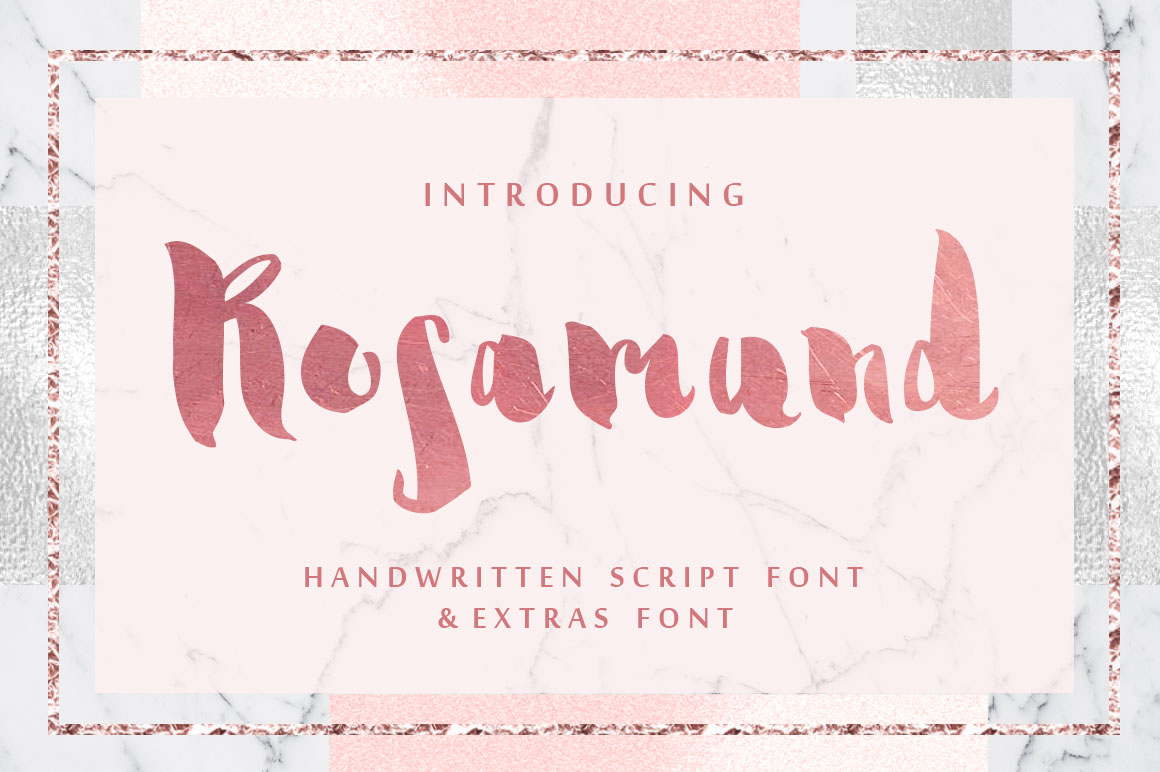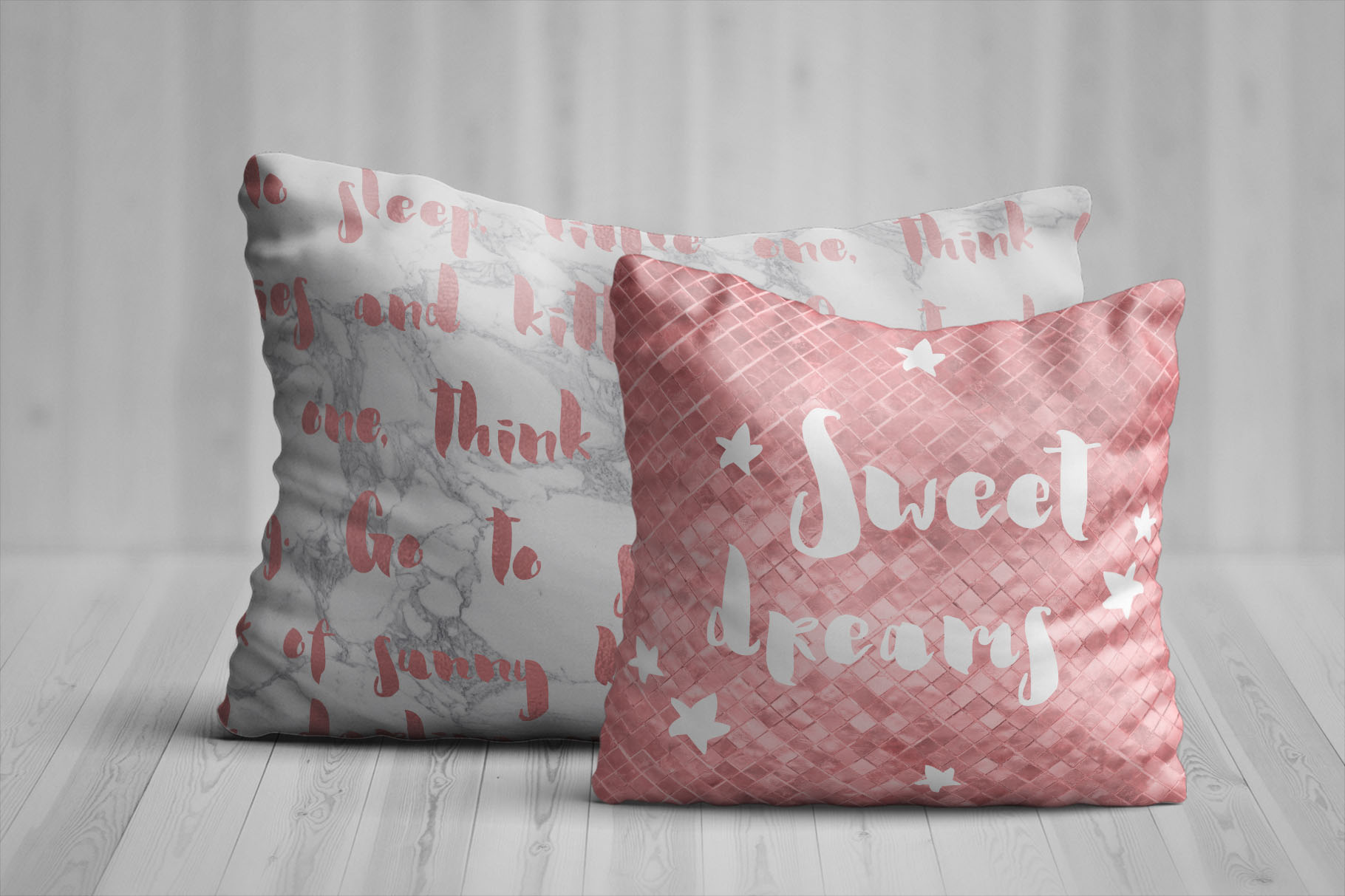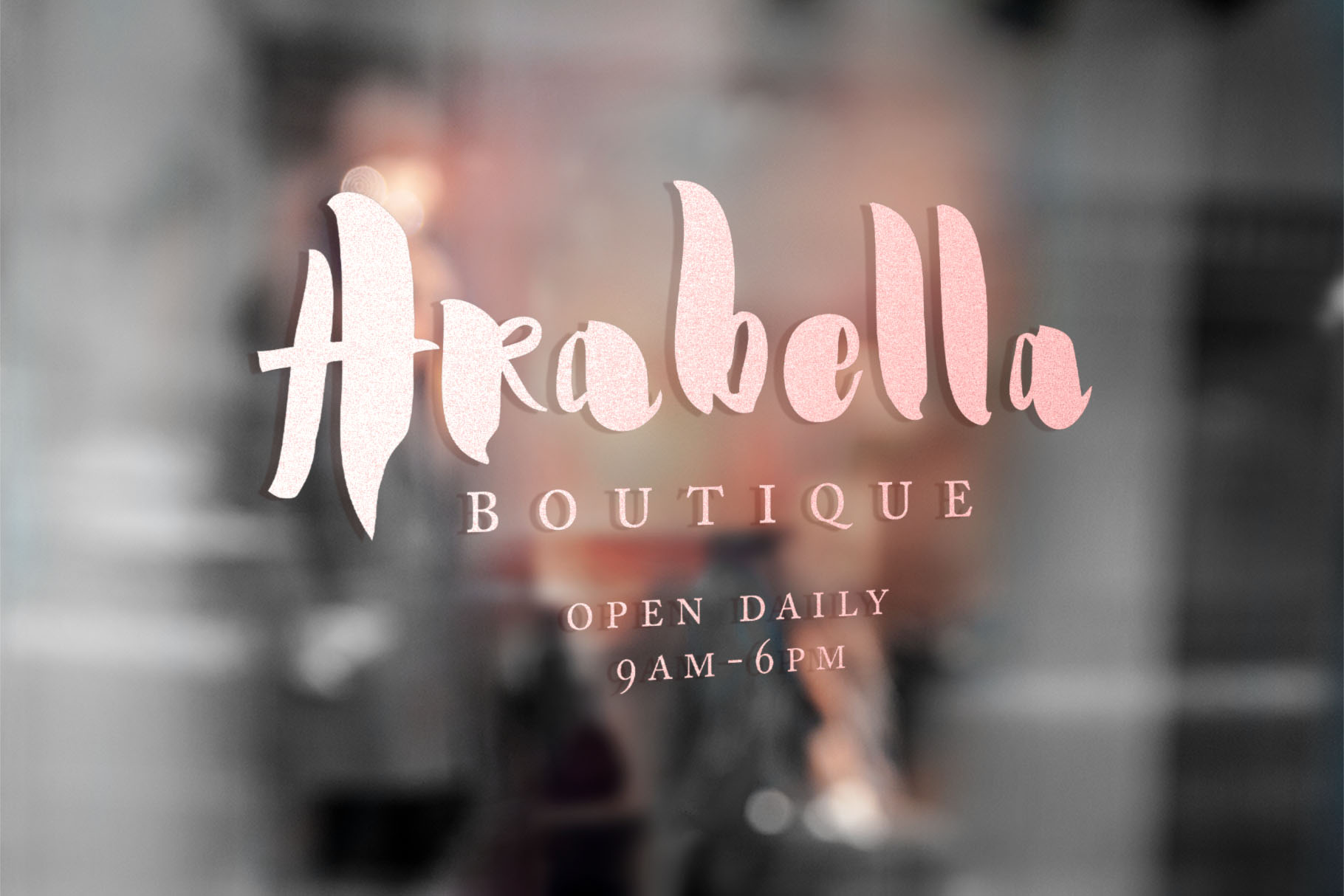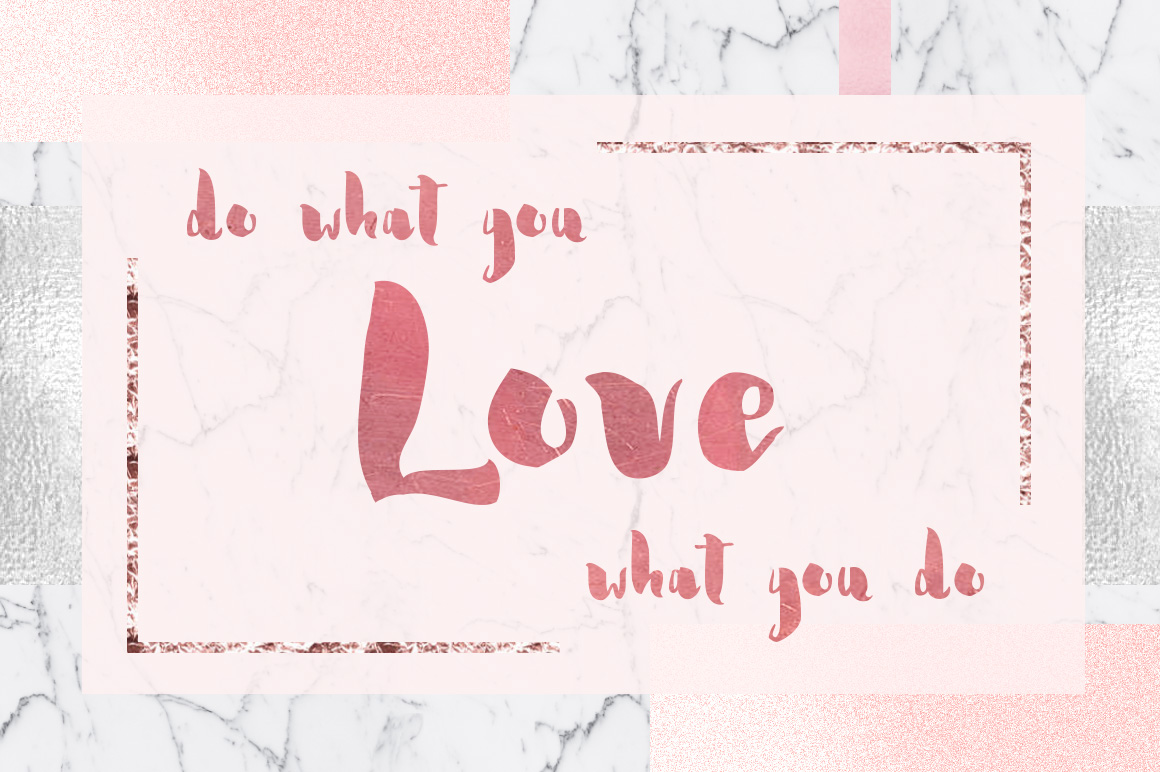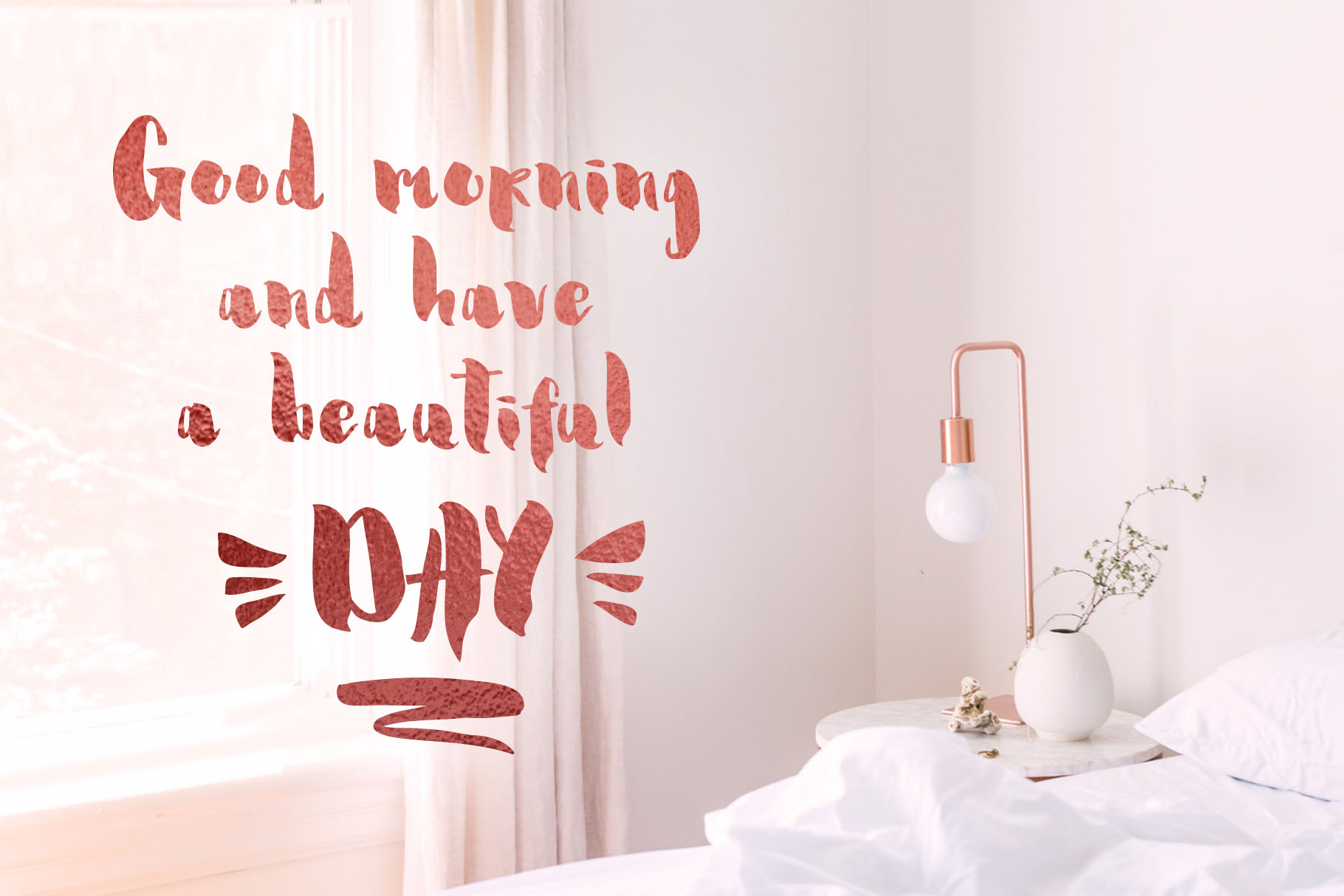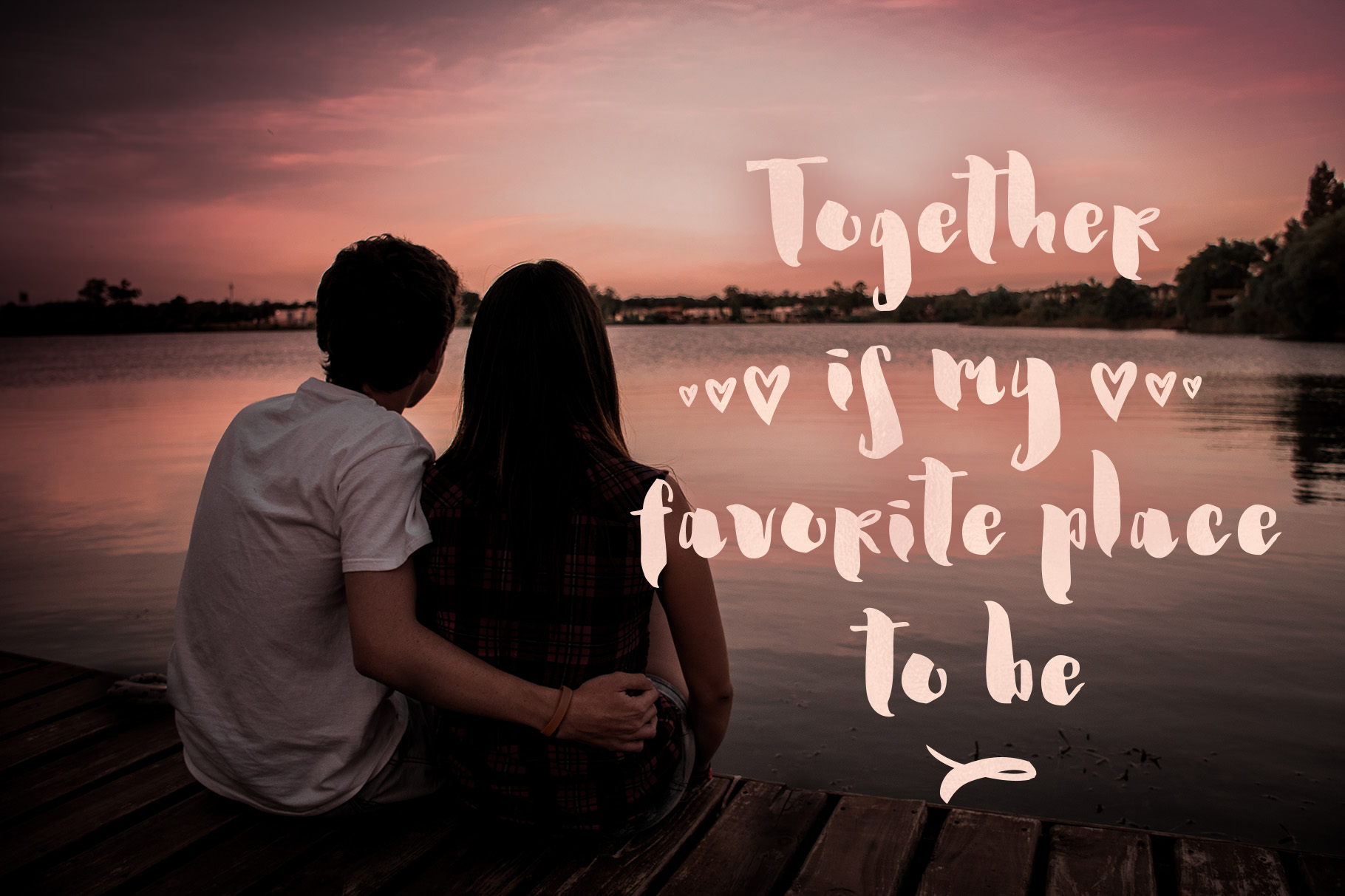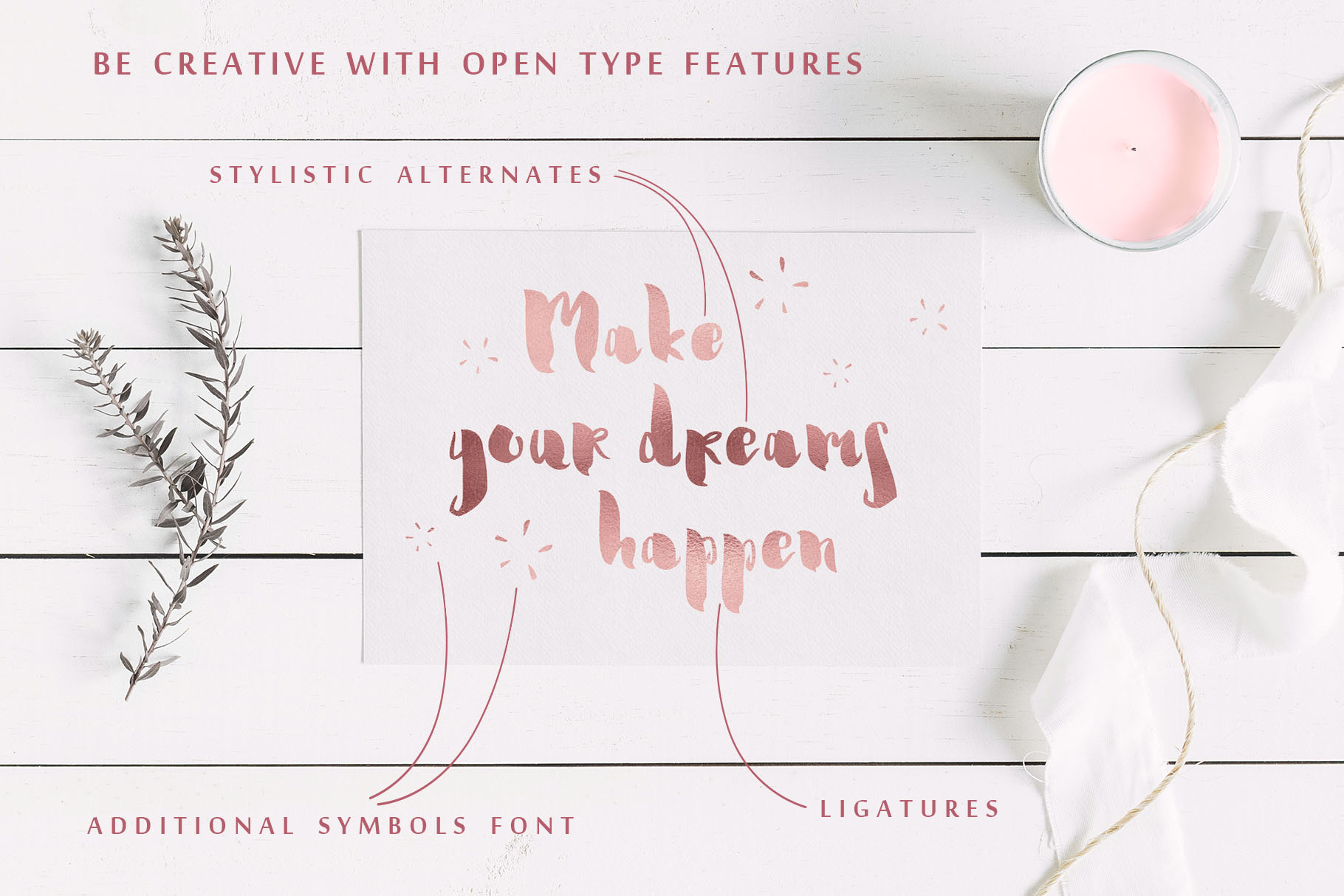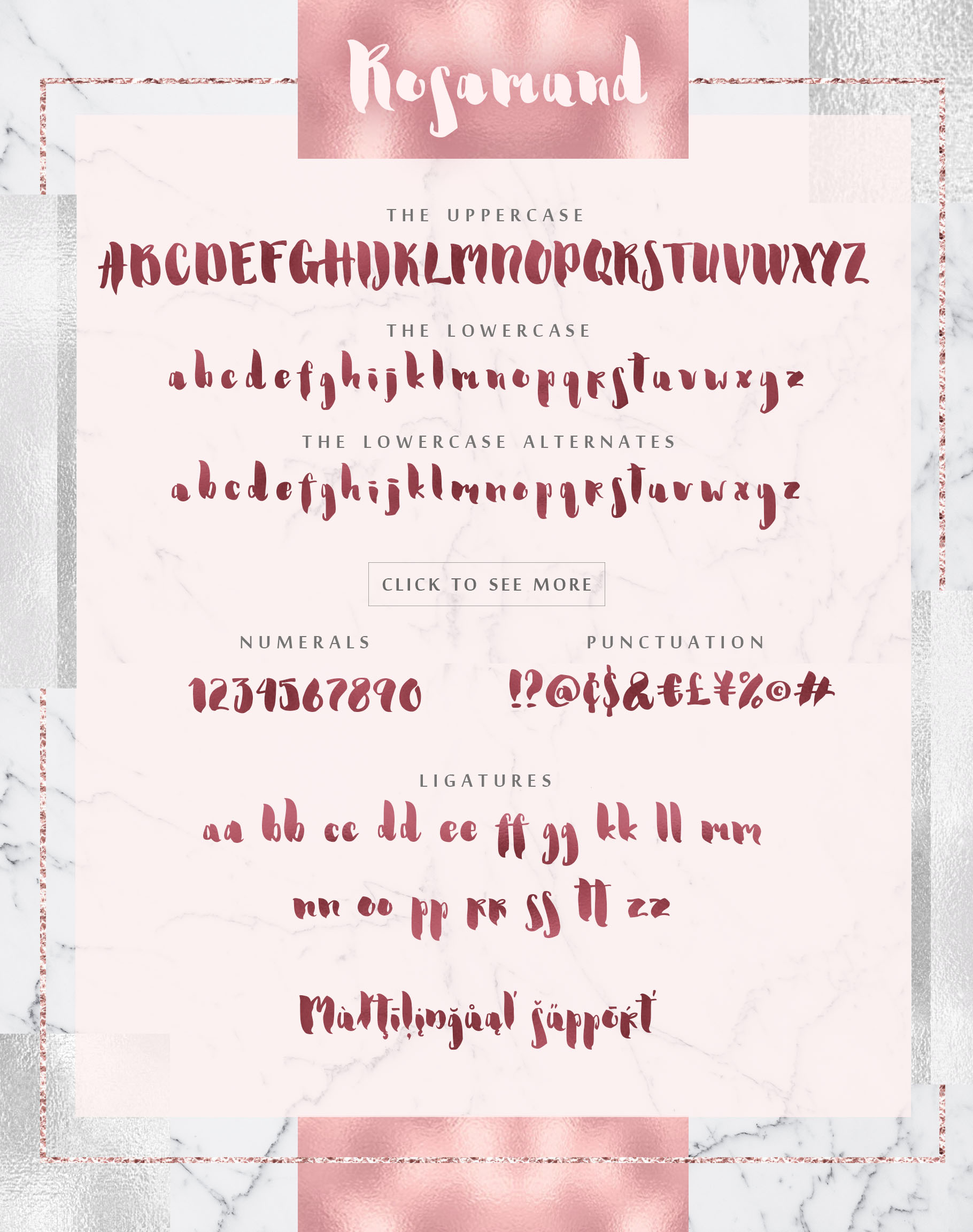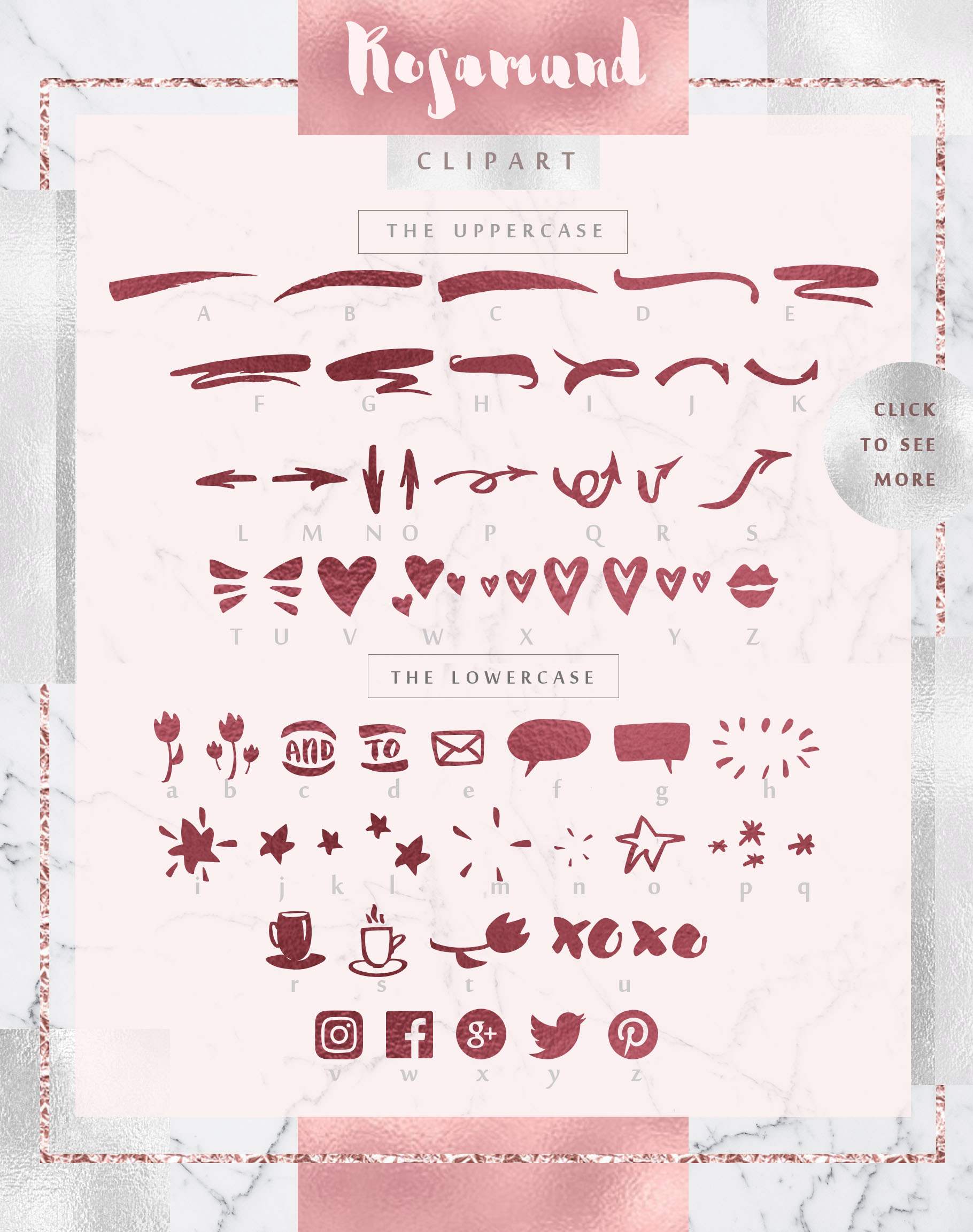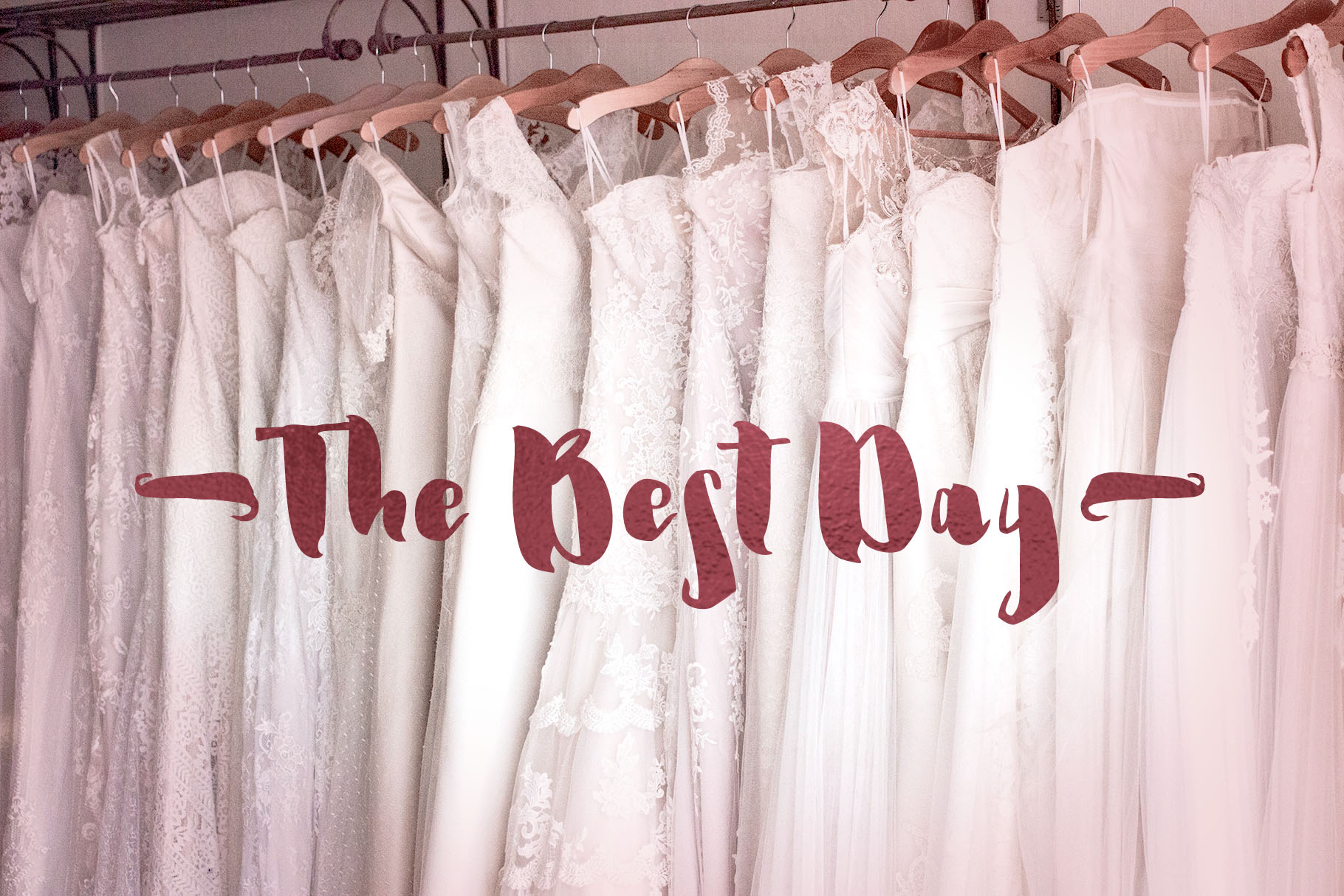
Rosamund Script & Extras Font
About Rosamund Script & Extras Font
Rosamund is an inky brush script with heavy down strokes, and skinny loops and upstrokes. It was made with the typographer’s favorite black color brush pen and retains playful hand written look for your designs. With over 50 unique hand drawn doodles and illustrations, Rosamund is both beautiful and versatile.